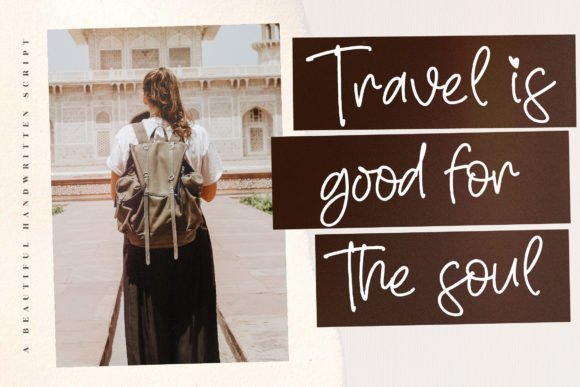
Jessie Mcgrath Font
db-ku.com - Script & Handwritten -- Jessie Mcgrath is a thin and delicate script font. Its informal style and casual vibe will make this font a go-to choice for each of the creations that require a relaxed touch.